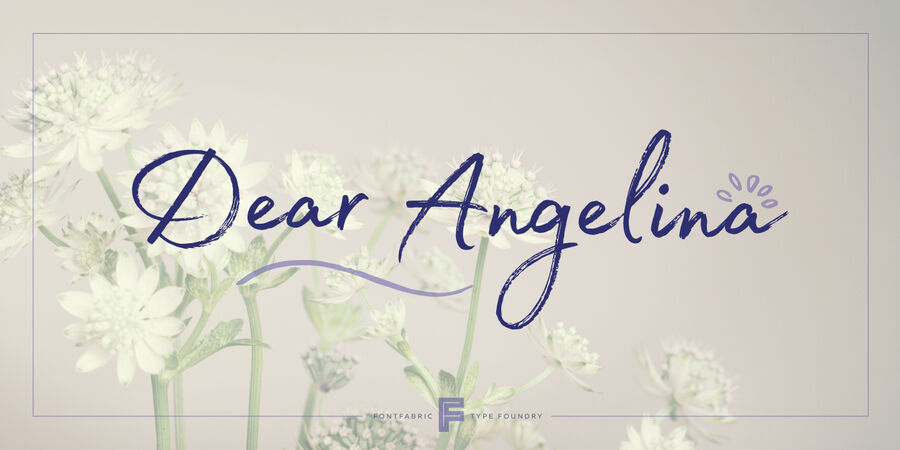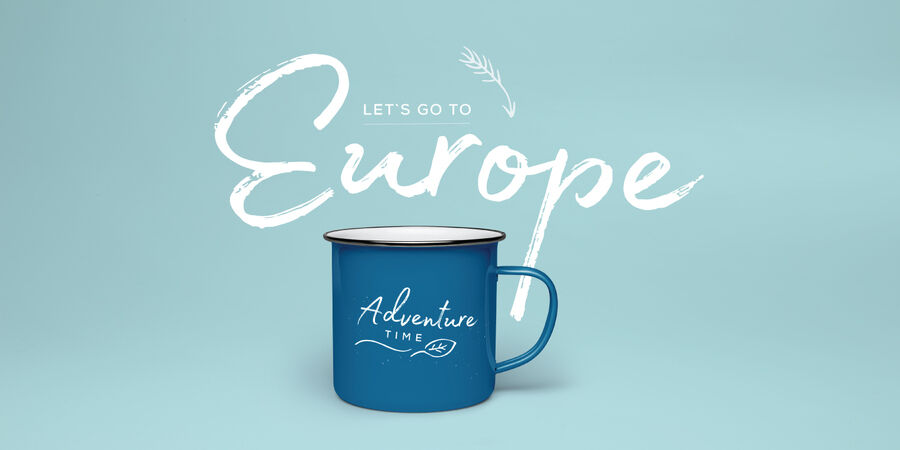
Madelyn is a handwritten script font based on the expression of real handwriting. Amiable and organic, it is perfect if you want to convey individuality and style. The Madelyn font is written with a calligraphy pen with casual dry strokes and a signature style. This script contains upper and lowercase characters with pleasant low x-height and high ascenders and descenders—and also numerals and a large range of punctuation and symbols. Over 100 ligatures are also available for upper and lowercase characters—double-letters that flow more naturally. Contextual alternates are part of the Open Type feature set. Madelyn Doodles includes a set of handmade ornaments, icons, and swashes that can help you for your key visual. Madelyn is perfect for branding projects, logos, product packaging, posters, invitations, greeting cards, titles, blogs, everything that includes personal charm. The typeface was designed by Jacklina Jekova in 2016-2018.